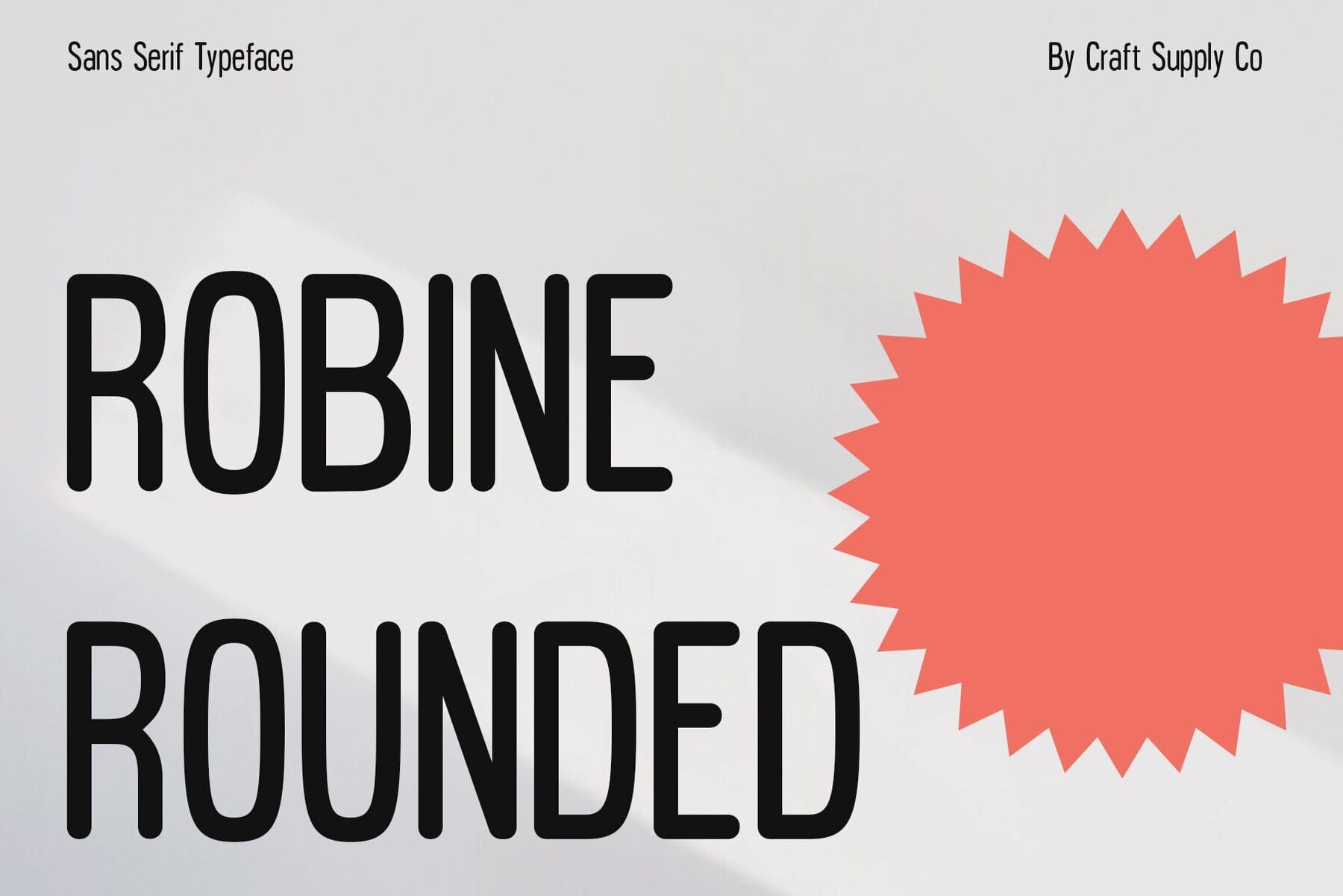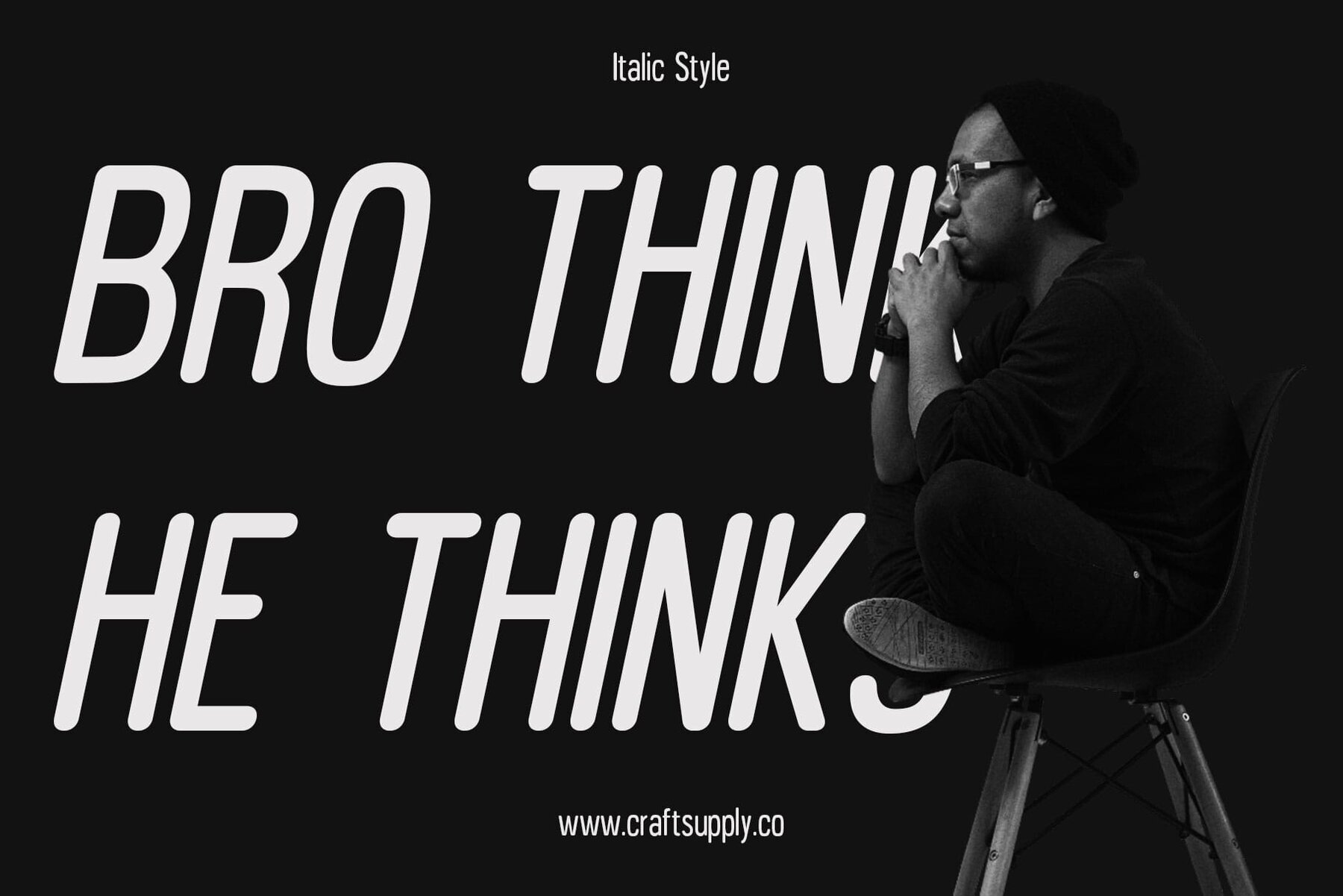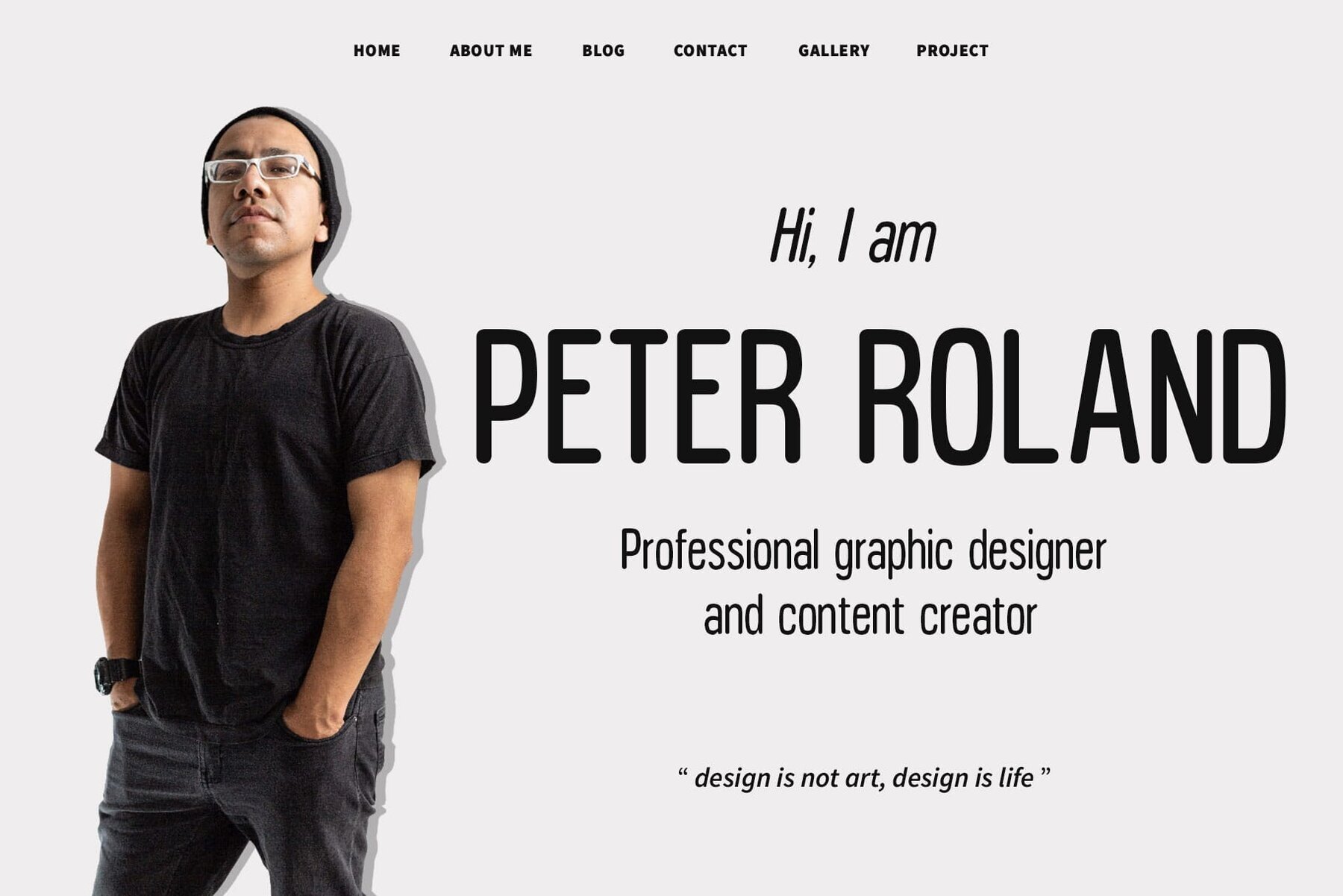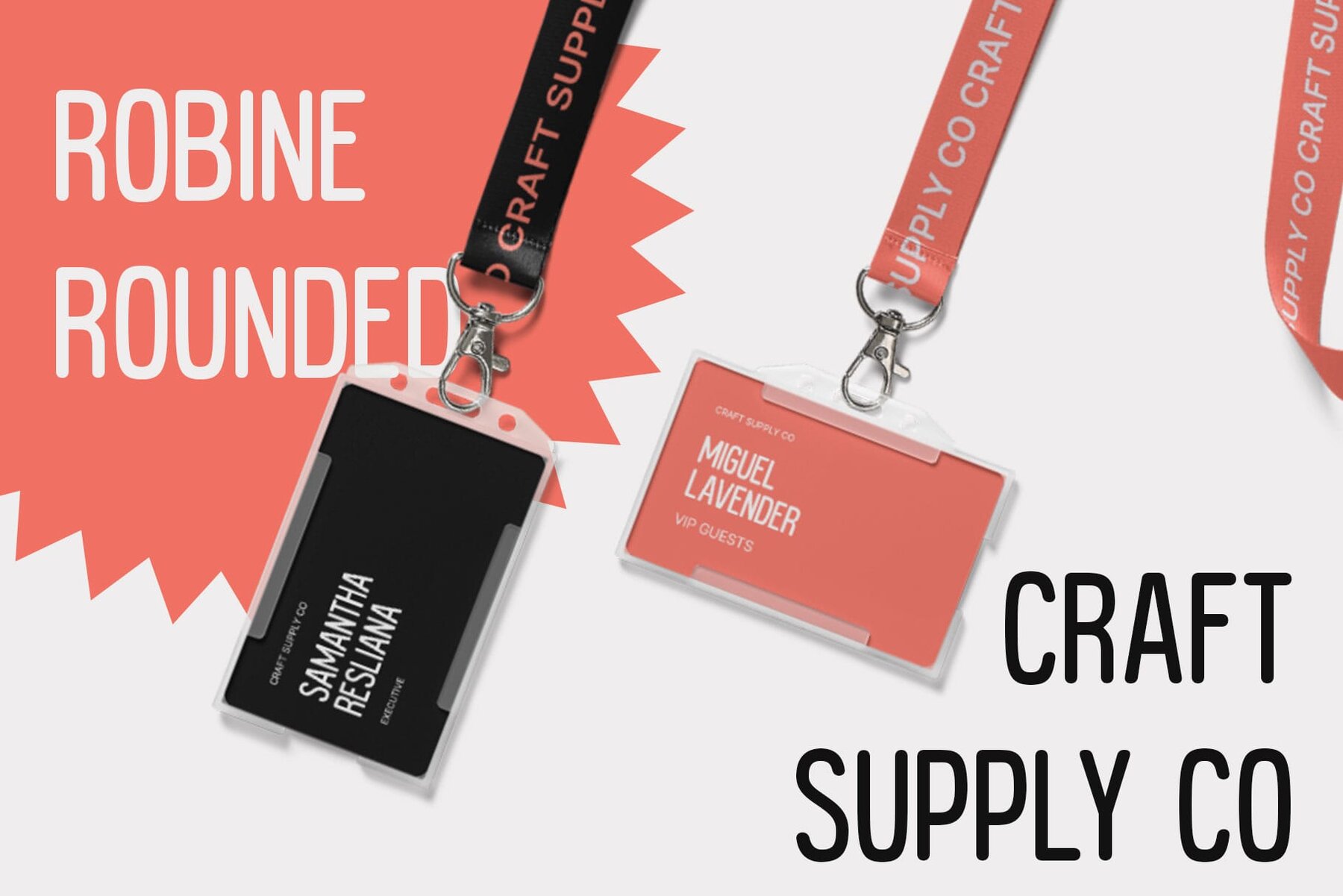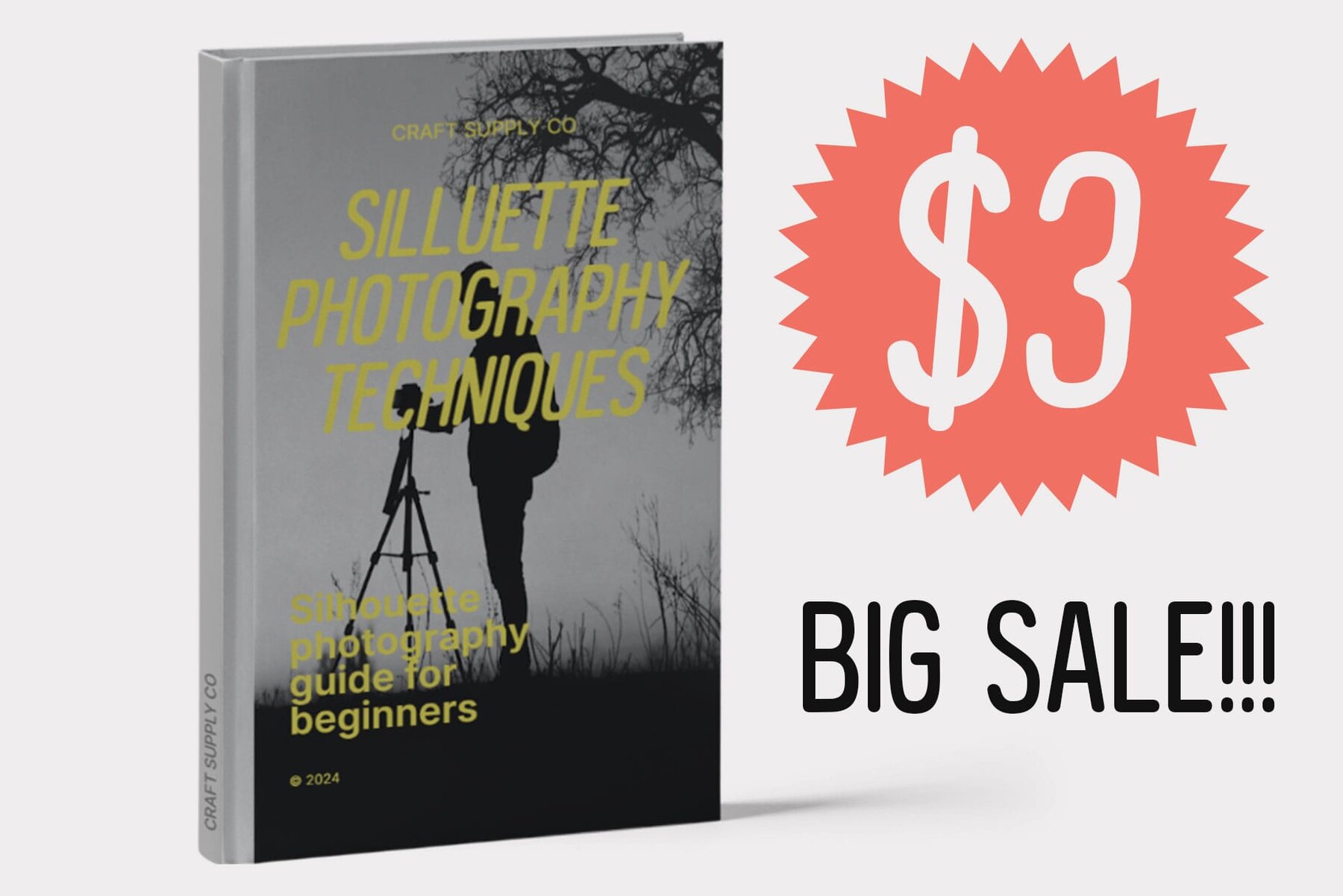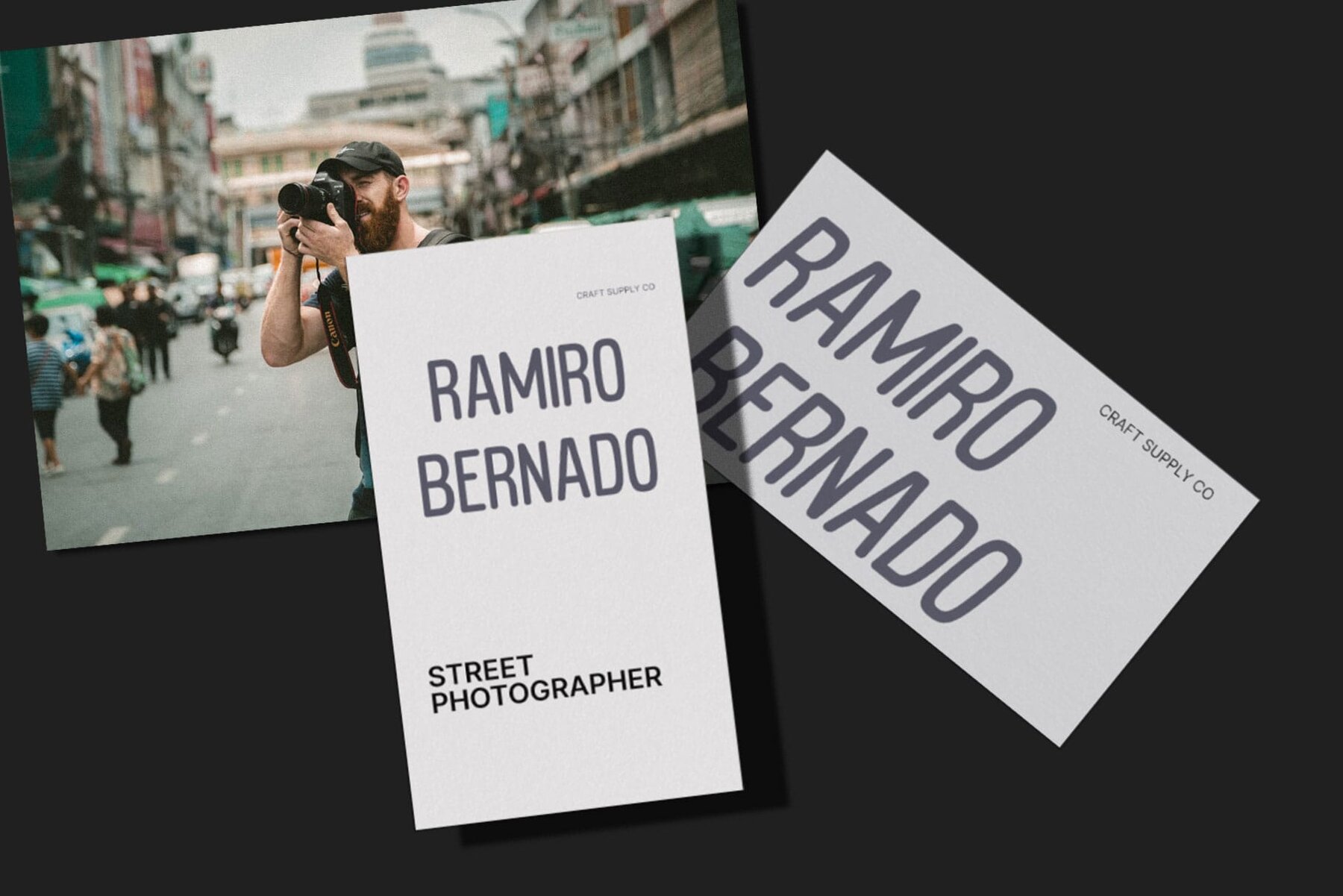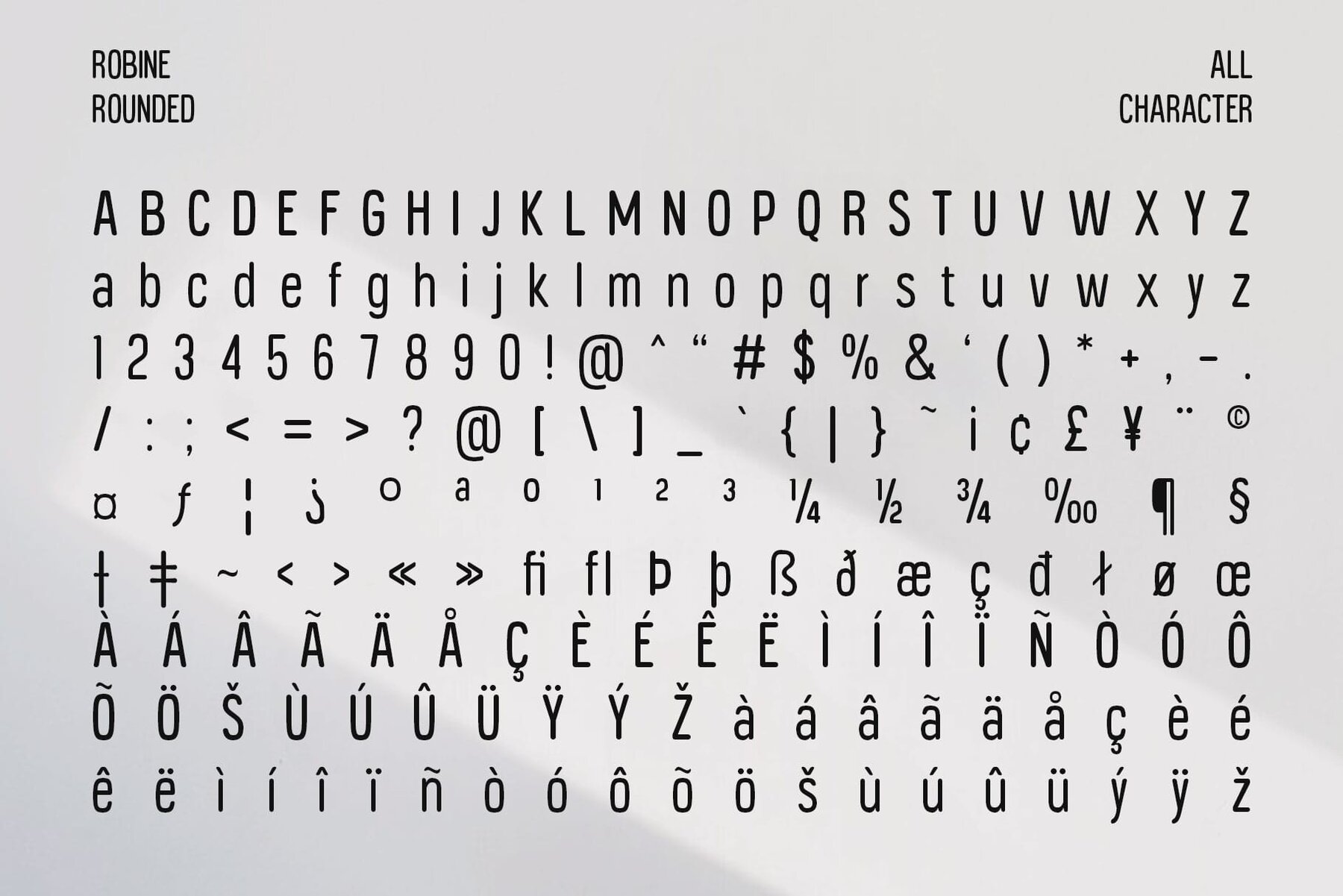
Robine Rounded Font
Robine Rounded by Craft Supply Co. is a sans-serif typeface characterized by its low contrast and inviting demeanor. Its rounded edges and soft curves create a warm and gentle aesthetic that radiates friendliness and approachability. No specialized software is required to use this typeface. If you have any inquiries or need assistance, please feel free to contact us. Thank you for choosing Robine Rounded to enhance your creative projects! Best regards, Craft Supply Co.Robine Rounded: Embracing Softness and Friendliness